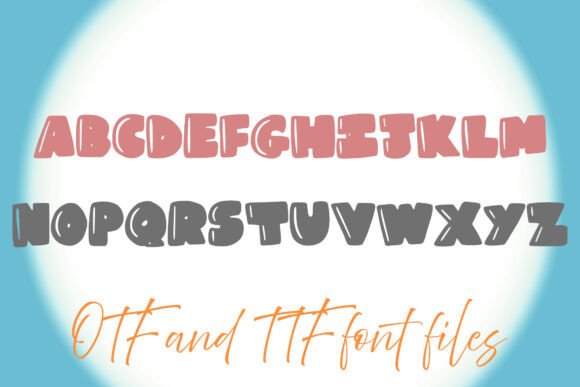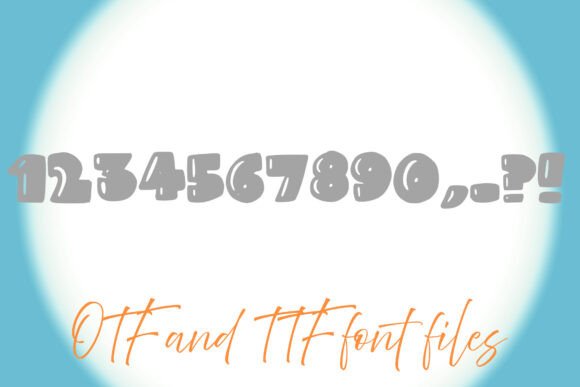
Introduction to Chunky Cartoon Font
Chunky Swirl is a fun and energetic display font with a bold, outlined style.
Featuring quirky letterforms and a dynamic, hand-drawn feel, this font is perfect for children’s books, posters, playful branding, and creative projects that need a touch of joy and vibrancy .
Key Features of Chunky Cartoon Font
Why Choose Chunky Cartoon Font?
Chunky Cartoon Font offers exceptional quality and versatility, making it a valuable addition to your design toolkit. Whether you’re creating for personal projects or commercial use, Chunky Cartoon Font delivers professional results.